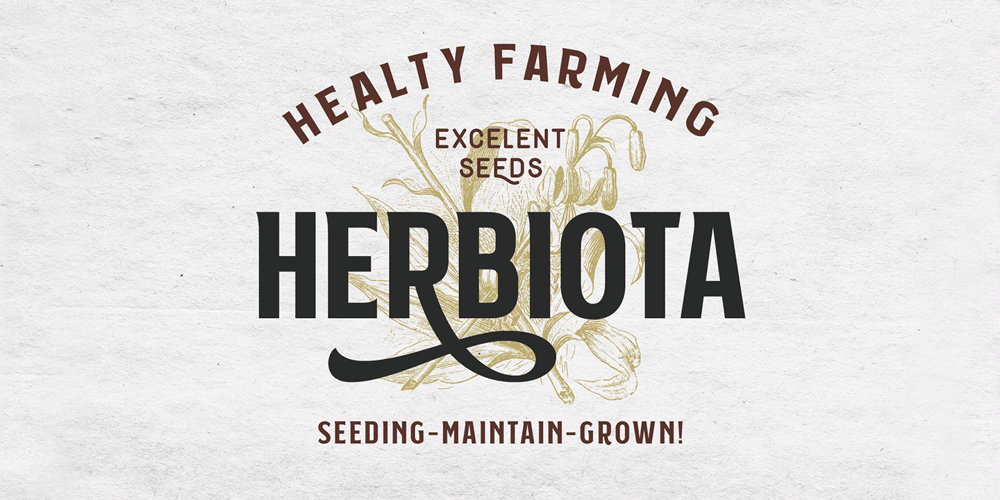
Subversia Font Family was designed by Ahmad Ramzi Fahruddin and published by Arterfak Project. Subversia contains 2 styles and family package options. Subversia is inspired by sport and Victorian style. It is designed with elegant and solid shapes to give a modern touch, and is very suitable for your designs such as posters, flyers, t-shirts, logos, signage, branding, the even body text for magazines. Subversia has all-caps characters as Stylistic set in OpenType features that gives you greater variant of typographic possibilities, especially in headlines. This set also has ligatures, stylistic alternates and swashes to make your design look more natural and elegant. 400+ glyphs total with 23 languages. This font is designed with adaptive and flexible looks that possible to apply in other styles outside vintage. With the italic style you can use this font for a sporty theme, minimalism, pop contemporary, dark theme, feminine or editorial project.